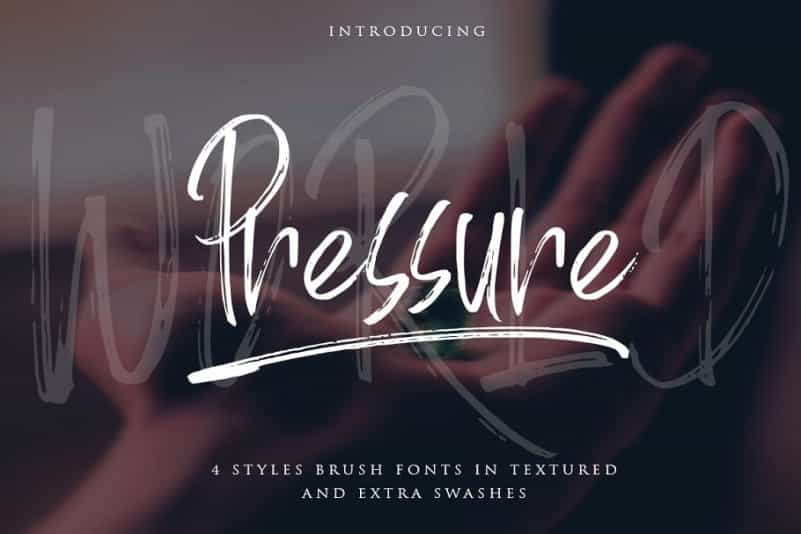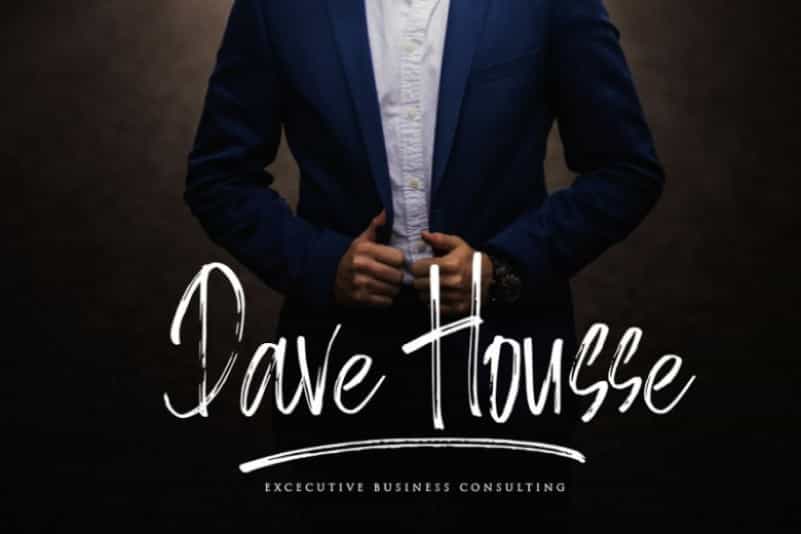
Introducing the World Pressure Font. An stylish font with a personal touch. Its quick dry strokes and signature style make it perfect for branding endeavors homeware designs product packaging or as a text overlay on any background image.